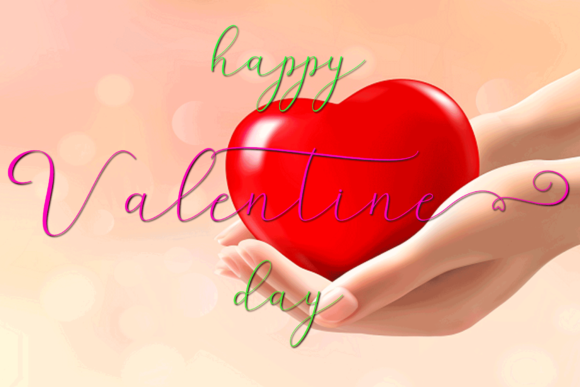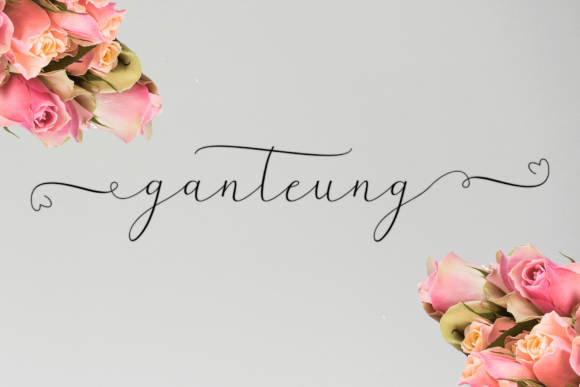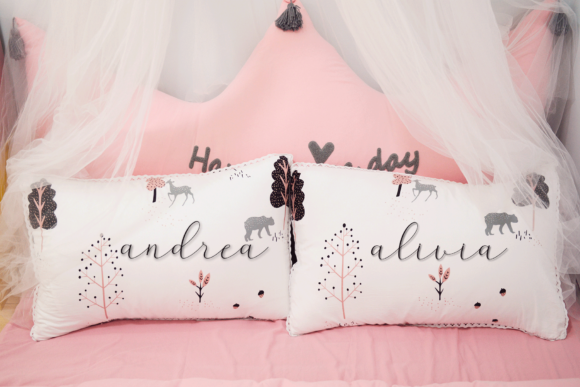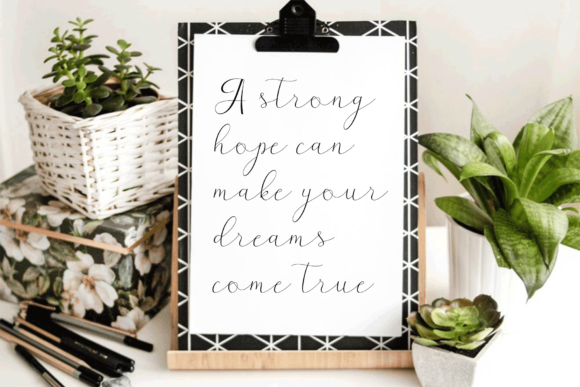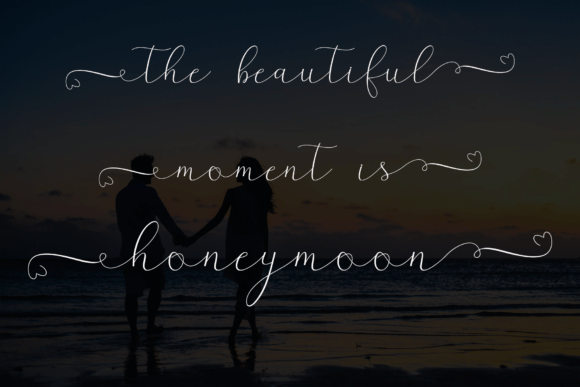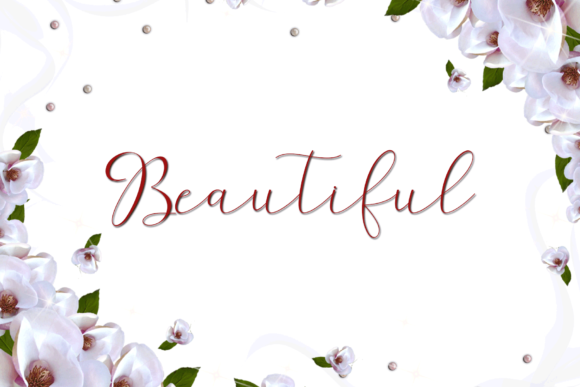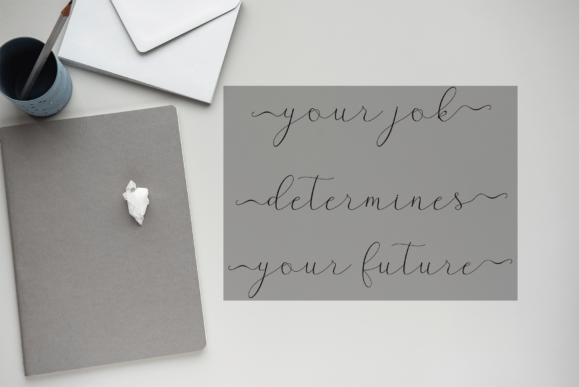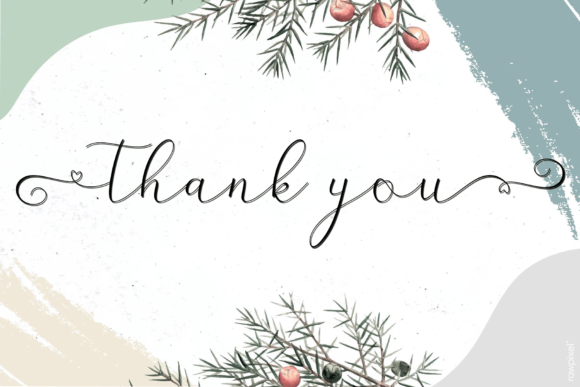
Banteuka Font
Banteuka delivers an outstanding script experience. It contains gorgeous swashes and alternates that will ignite your creativity in an instant!